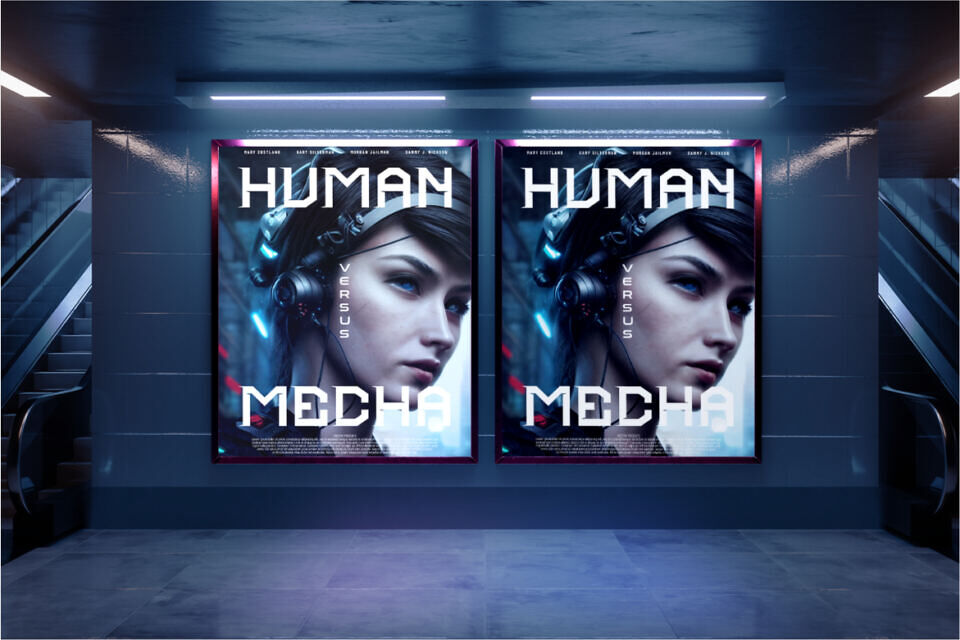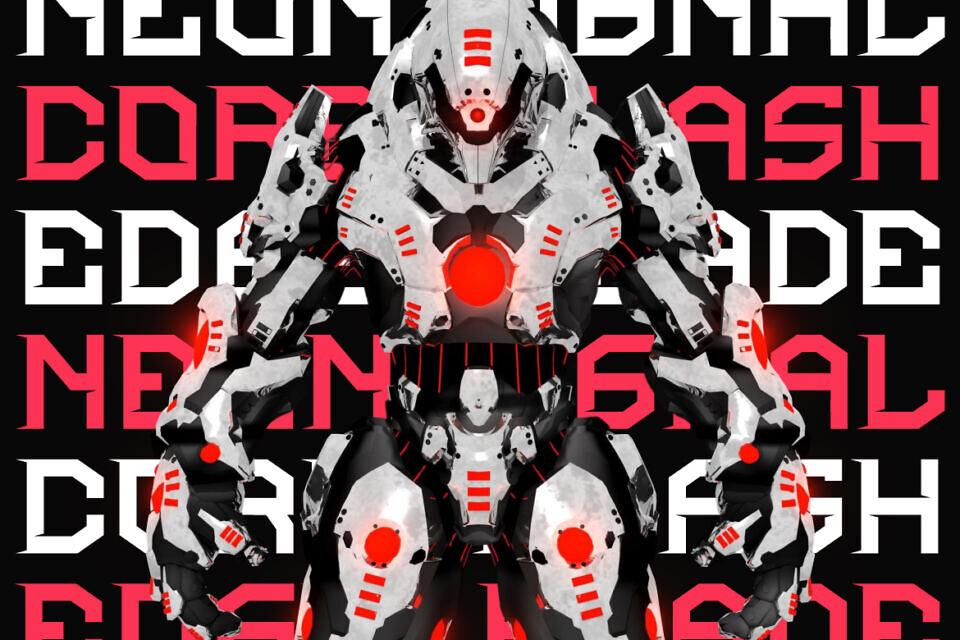
Cyber Blade Font
Cyber Blade is a futuristic display font designed for cutting-edge aesthetics. Its angular letterforms and blade-like strokes are inspired by sci-fi weaponry and robotics, giving it an aggressive yet readable style.
Ideal for high-tech branding, esports logos, and virtual event titles, the font’s dual-tone red and black style creates a dynamic visual hierarchy. With its sharp edges and mechanical flair, Cyber Blade is the perfect digital tool for projects that demand a powerful, innovative personality, from film titles to UI-based interfaces.